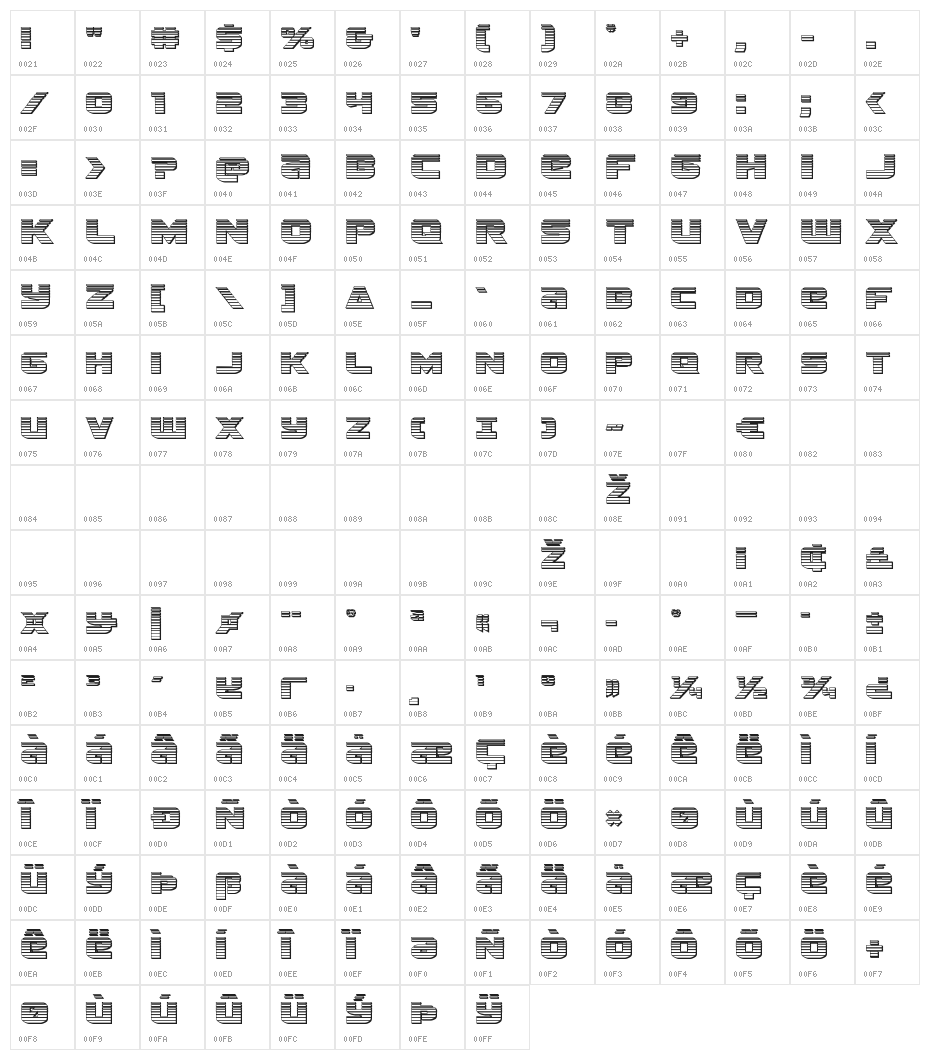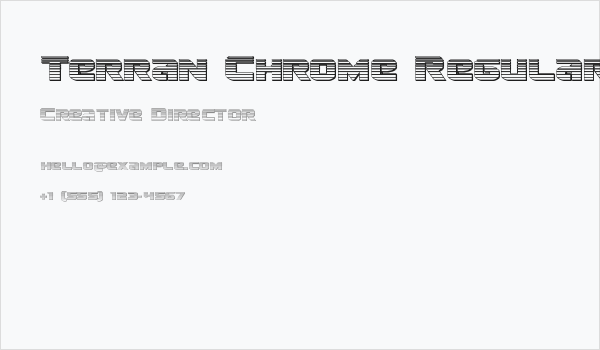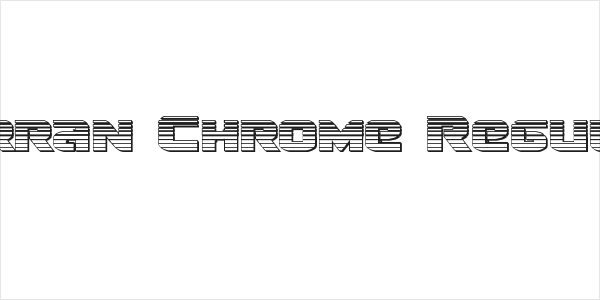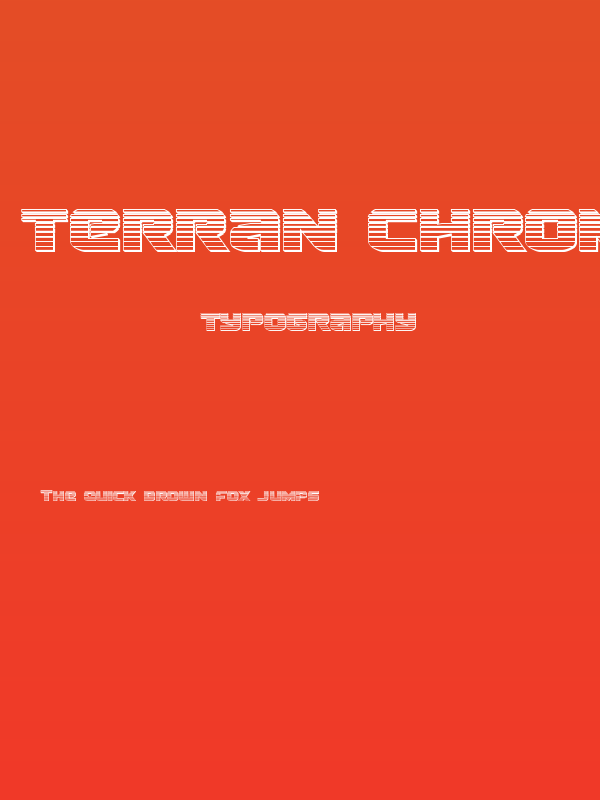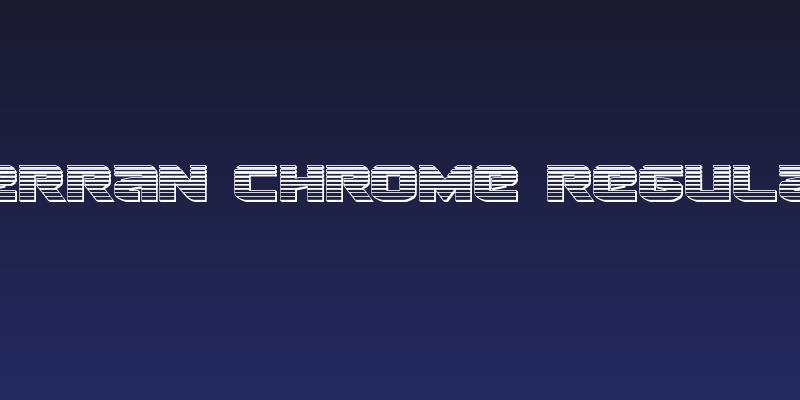
Terran Chrome Regular Font
Terran Chrome Regular Description
This font features a futuristic and geometric design with a distinct chrome-like appearance. Each character is constructed with multiple horizontal lines that create a layered effect, giving it a three-dimensional look. The uppercase and lowercase letters maintain a consistent style, with sharp angles and clean lines that enhance its modern aesthetic. The numerals and special characters follow the same design principles, ensuring uniformity across the entire set. This font is ideal for projects that require a bold, eye-catching typeface with a technological or sci-fi theme.
| Proposed Projects | Ideal for sci-fi themed designs, technology branding, video game titles, and futuristic posters. |